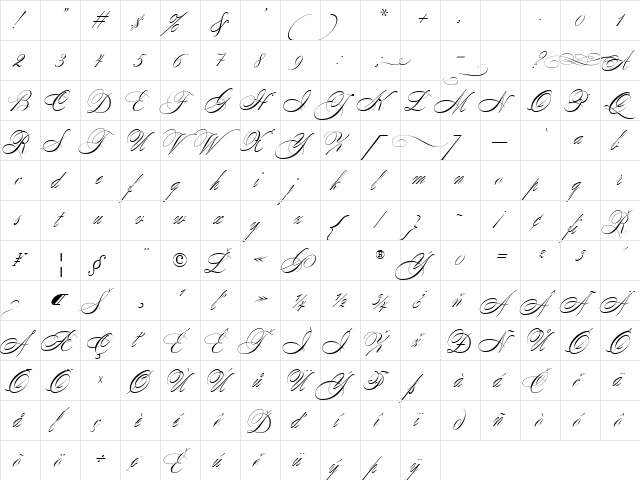
Wolfgang Amadeus Mozart Regular
| Foundry | Alexandra Gophmann rusification |
| Designer | Alexandra Gophmann |
Design Context for Wolfgang Amadeus Mozart Typeface
Wolfgang Amadeus Mozart is a composed and adaptable typeface that performs quietly and consistently across a wide range of design contexts.